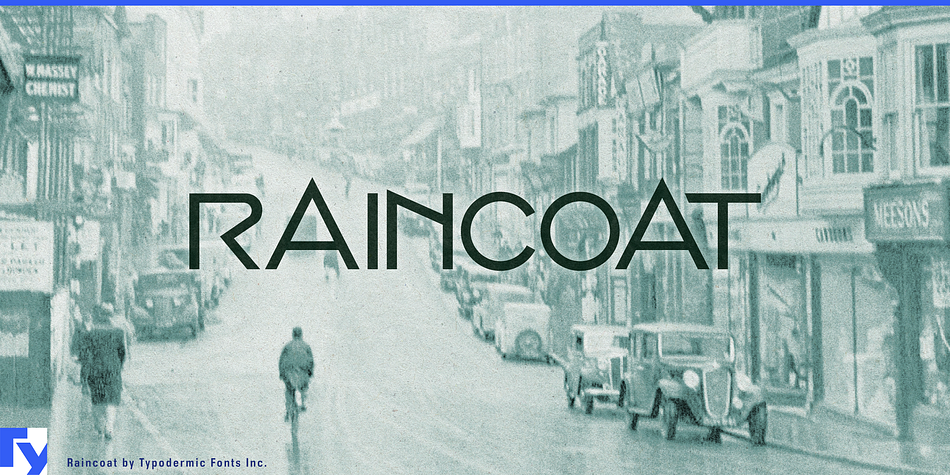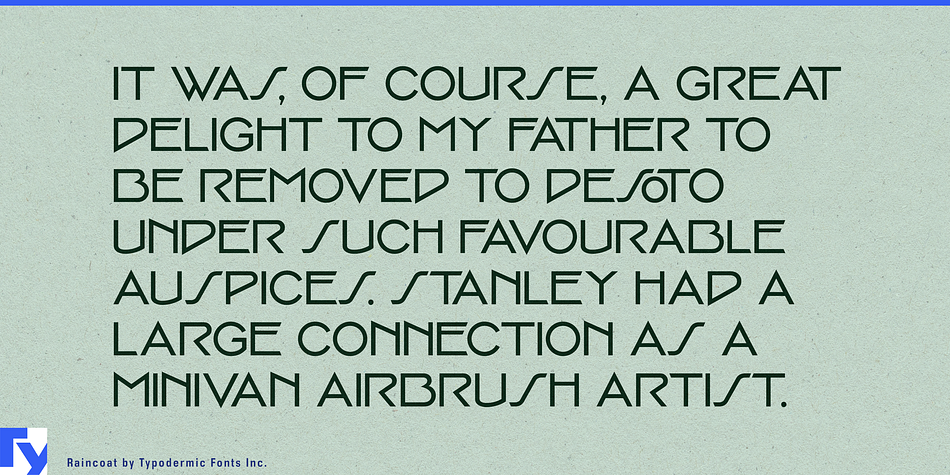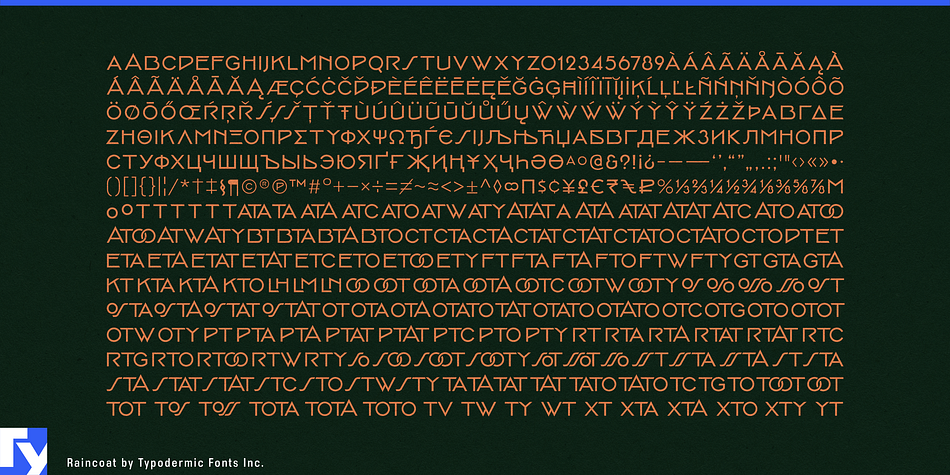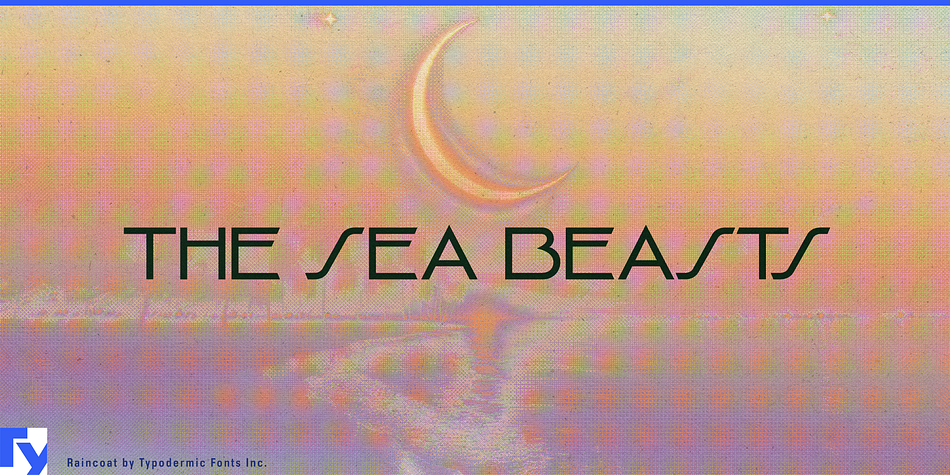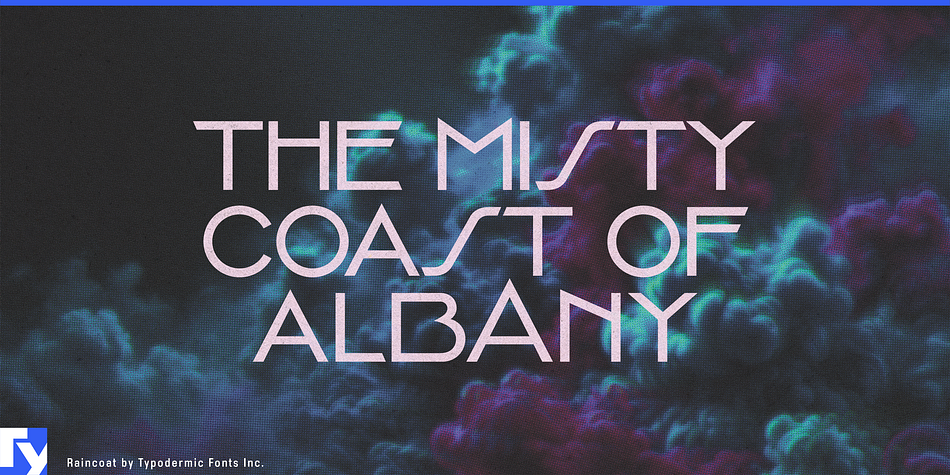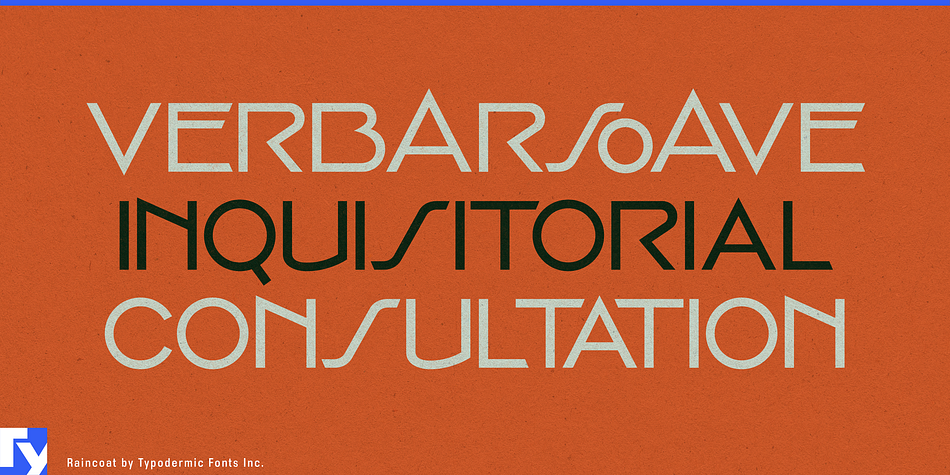
Raincoat is a retro font published by Typodermic Fonts Inc.
Raincoat’s secret Victorian heritage is betrayed by its even more secret classic rock heritage. OpenType savvy applications will give your work a customized look you by swapping letters for custom ligatures. For example: in common letter groups, the ends of the T change shape to conform with adjacent letters. A double O joins to form 2 sweet rings (awww) and buckets more.